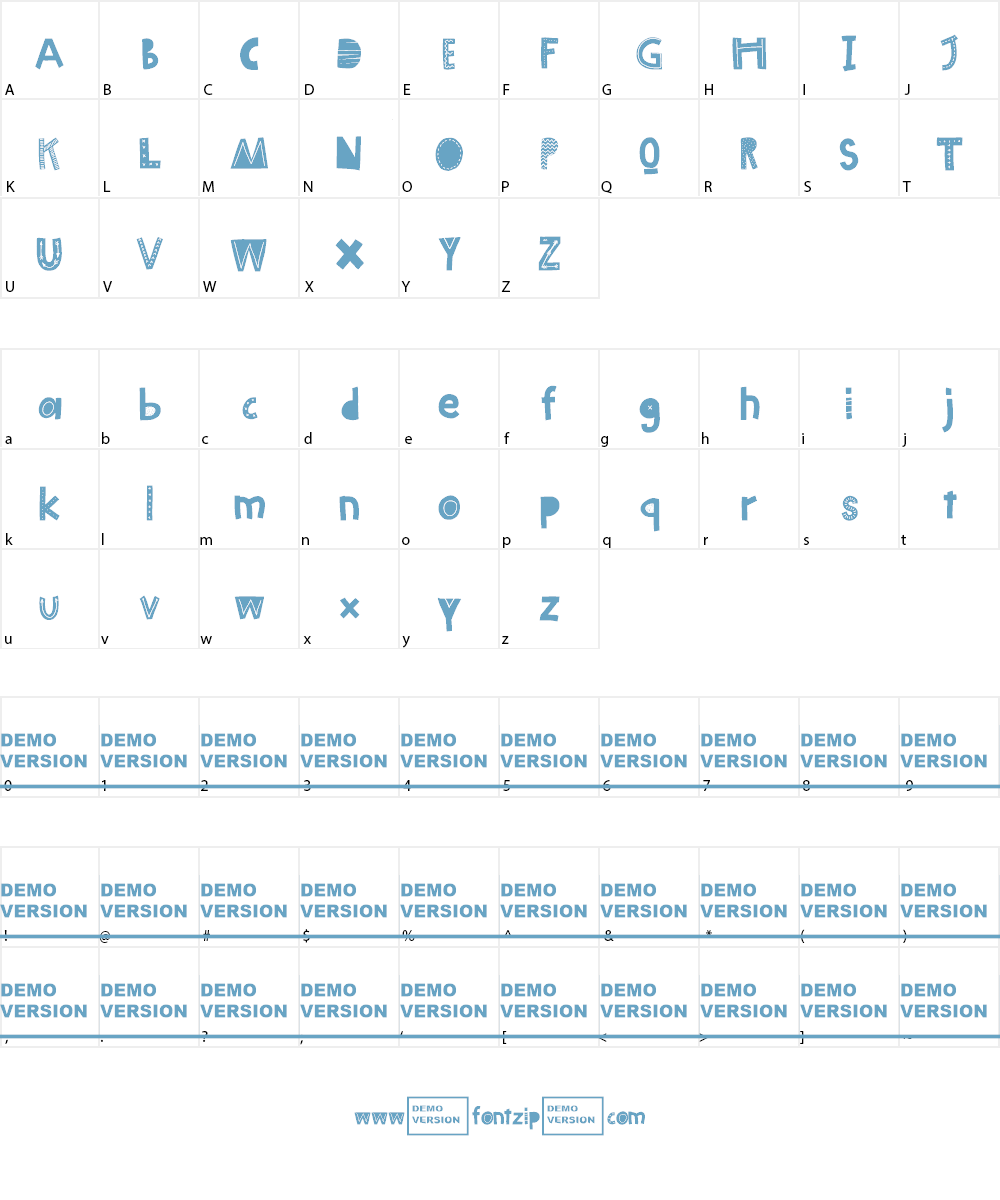
Scandilover is one of two fonts from Scandilover Family, which was inspired by monochrome Scandinavian style kid rooms full of handwritten graphics, black and white accessories and prints. It’s a playful display font with its personal charisma. Each letter in the font perfectly combines with another and all in all creates a text that is an entire illustration itself.